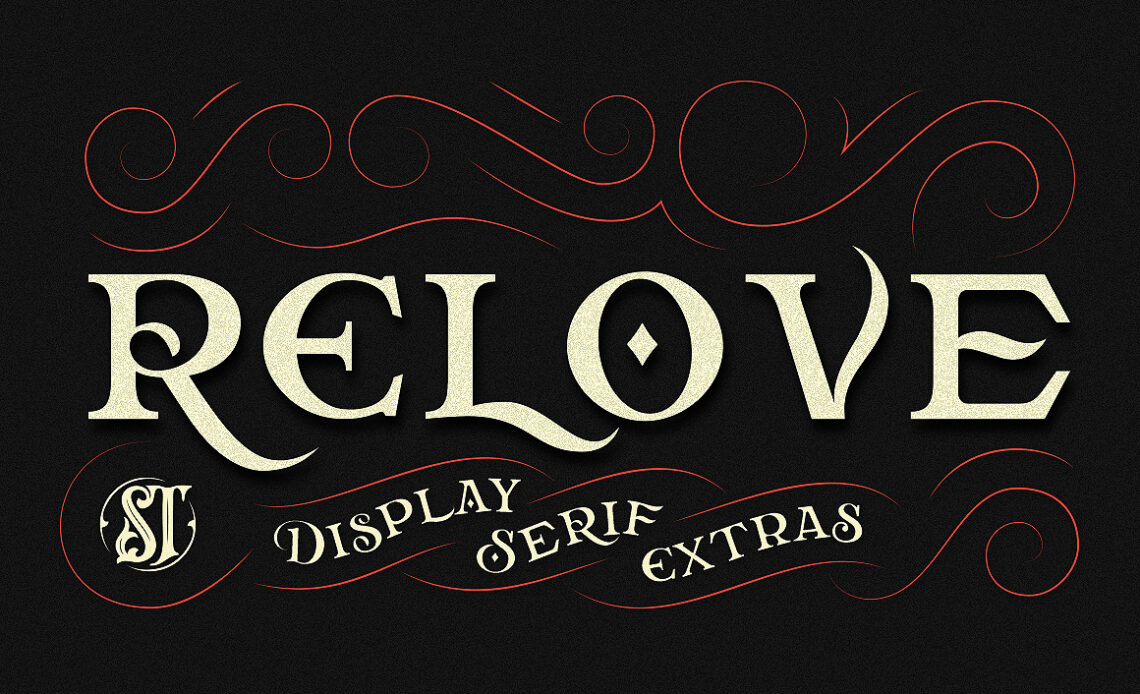
Introducing Relove Font: The Epitome of Elegance and Vintage Charm in Typography
In a world clamoring for distinction and authenticity, Relove Font emerges as a typographic masterpiece, a symphony of vintage elegance and captivating curves. Inspired by the ethereal beauty of nature, Relove's all-caps design dances across your designs with the grace of a ballerina, leaving a trail of visual enchantment.
With its strong and sleek letterforms, Relove provides a solid foundation for your creative endeavors, allowing your projects to blossom into works of art in a matter of seconds. The intricate details and refined strokes of Relove Font elevate your designs, transforming them into visual masterpieces that command attention and ignite emotions.
Whether you're a seasoned designer seeking to infuse your work with a touch of timeless elegance or an aspiring artist searching for a font that speaks to your creative soul, Relove beckons you to embrace its allure. Its versatility knows no bounds, effortlessly adapting to a myriad of projects, from captivating logos and eye-catching posters to stunning social media graphics and enchanting wedding invitations.
Relove's vintage charm lends a touch of nostalgia to your creations, evoking an era of classic beauty and sophistication. As you weave your words into existence with Relove, you'll find yourself immersed in a realm of creativity, where imagination reigns supreme and boundaries dissolve.
Dive into the world of Relove Font and experience the transformative power of typography. Let your designs flourish with an air of timeless elegance and vintage grace. Download Relove today and unlock the gateway to creative brilliance.